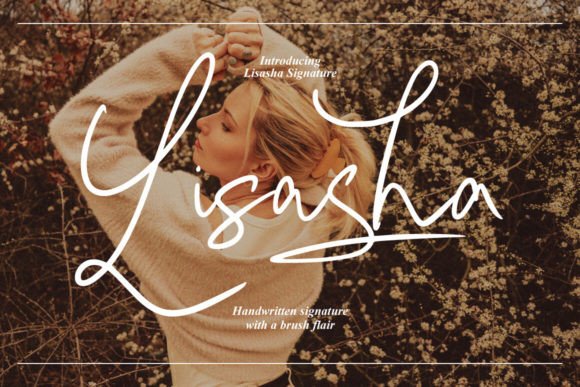
Behold the enchanting Lisasha Signature font, a masterpiece crafted by the talented hands of Tebaltipis.std, beckoning you to embrace its captivating allure.
This exquisite script font exudes elegance and charm, reminiscent of the delicate strokes of a calligrapher's quill. Its mesmerizing handmade Signature style dances across the page, adorning your creations with a touch of timeless sophistication.
With over 250 glyphs at your fingertips, Lisasha Signature grants you unparalleled versatility, allowing you to craft designs that reflect your unique artistry. Unleash your creativity and explore the depths of its expressive character set, brimming with alternate characters, swashes, stylistic sets, alternates, and ligatures.